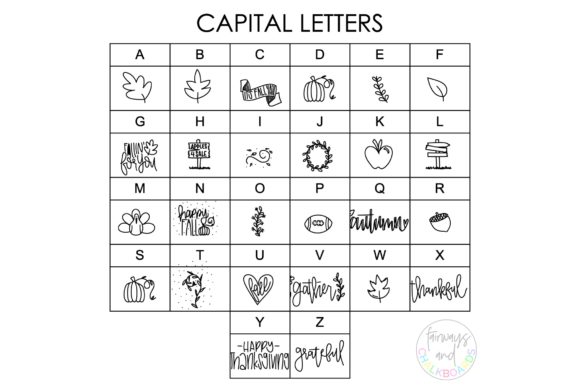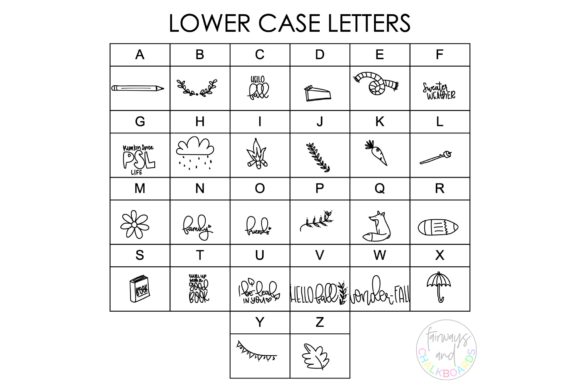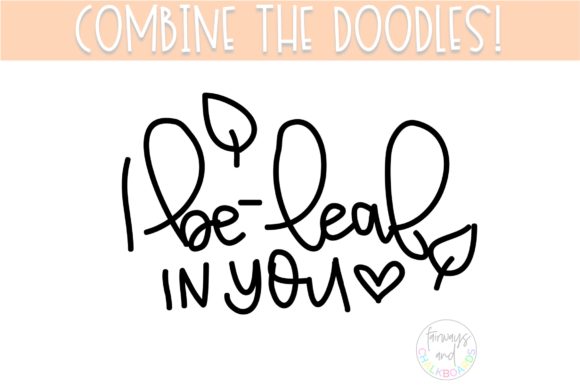
Introducing Fall Doodles Font: Elevate Your Designs with a Touch of Autumn Charm
As the seasons change and autumn leaves start to fall, designers and crafters are on the lookout for fresh inspiration to infuse their projects with a warm, cozy feel. If you’re searching for the perfect font to capture the essence of fall, look no further than Fall Doodles Font. This friendly dingbats font is specifically designed with a fall/autumn theme, offering a delightful collection of glyphs and symbols to take your designs to the next level.
What is Fall Doodles Font?
Fall Doodles Font is a unique, dingbats-style font that embodies the spirit of autumn. With its playful, hand-drawn aesthetic, this font is perfect for adding a personal touch to your designs. The font features an extensive range of fall-themed glyphs, including leaves, acorns, pumpkins, and other seasonal icons. Whether you’re working on a project for a client or creating something for personal use, Fall Doodles Font is sure to bring a smile to your face and a touch of autumn magic to your designs.
Key Features of Fall Doodles Font
- Fall-themed glyphs: The font includes a wide range of autumn-inspired glyphs, such as leaves, acorns, pumpkins, and more.
- Playful, hand-drawn design: The font boasts a friendly, approachable feel that’s perfect for creating designs that are both fun and sophisticated.
- Scalable: The font is designed to be scalable, ensuring that it looks great in any size or application.
Uses for Fall Doodles Font
Fall Doodles Font is incredibly versatile, making it suitable for a wide range of design projects. Here are just a few ideas to get you started:
- Autumn-themed crafts: Use the font to create custom signs, banners, and decorations for fall celebrations, such as Halloween or Thanksgiving.
- Seasonal branding: Add a touch of autumn charm to your brand’s marketing materials, such as social media graphics, flyers, or brochures.
- DIY projects: Incorporate Fall Doodles Font into your DIY projects, such as handmade cards, gift tags, or scrapbooking pages.
- Web design: Use the font to create autumn-themed website headers, buttons, or other design elements.
Tips for Using Fall Doodles Font
To get the most out of Fall Doodles Font, here are a few tips to keep in mind:
- Experiment with different sizes and colors: Don’t be afraid to try out different font sizes and colors to add visual interest to your designs.
- Mix and match glyphs: Combine different glyphs to create unique and eye-catching designs.
- Use the font to add a personal touch: Fall Doodles Font is perfect for adding a personal touch to your designs, so don’t be afraid to get creative!